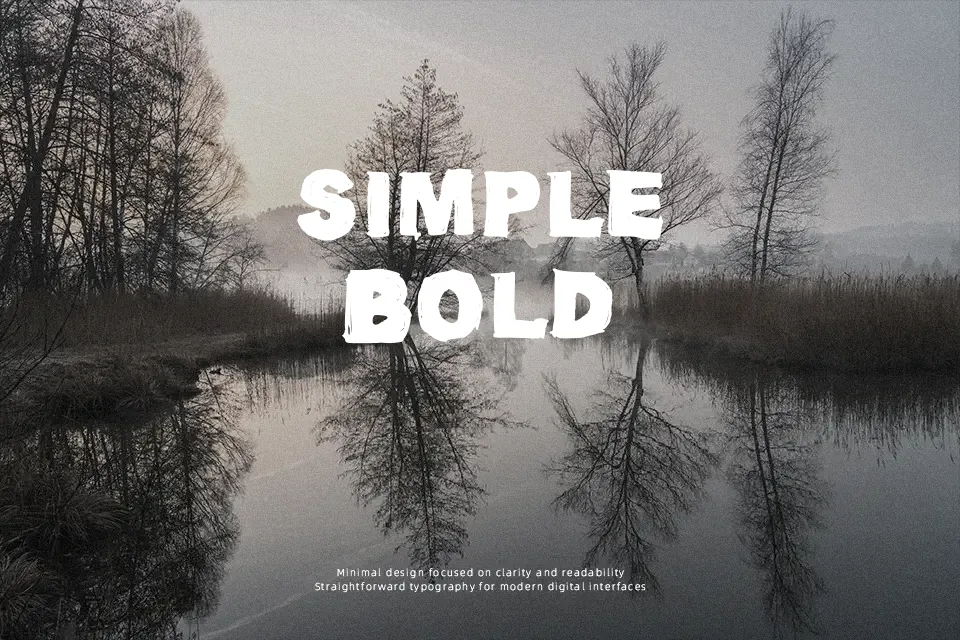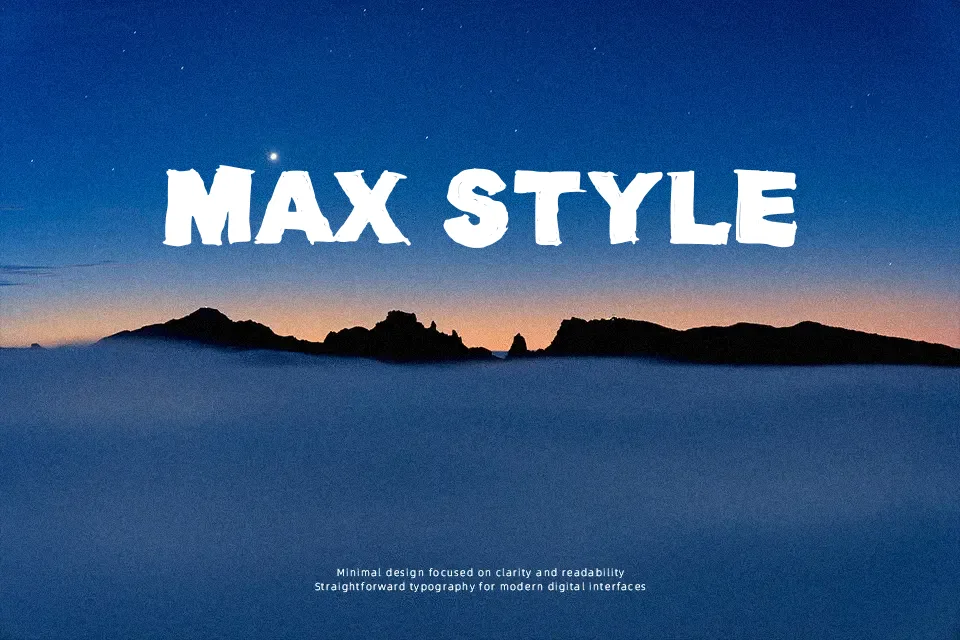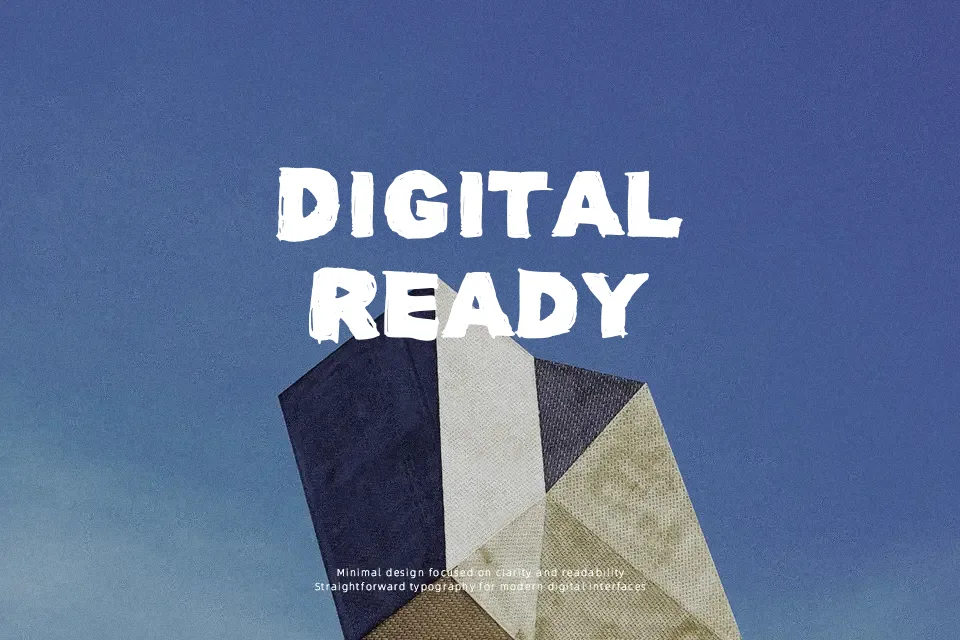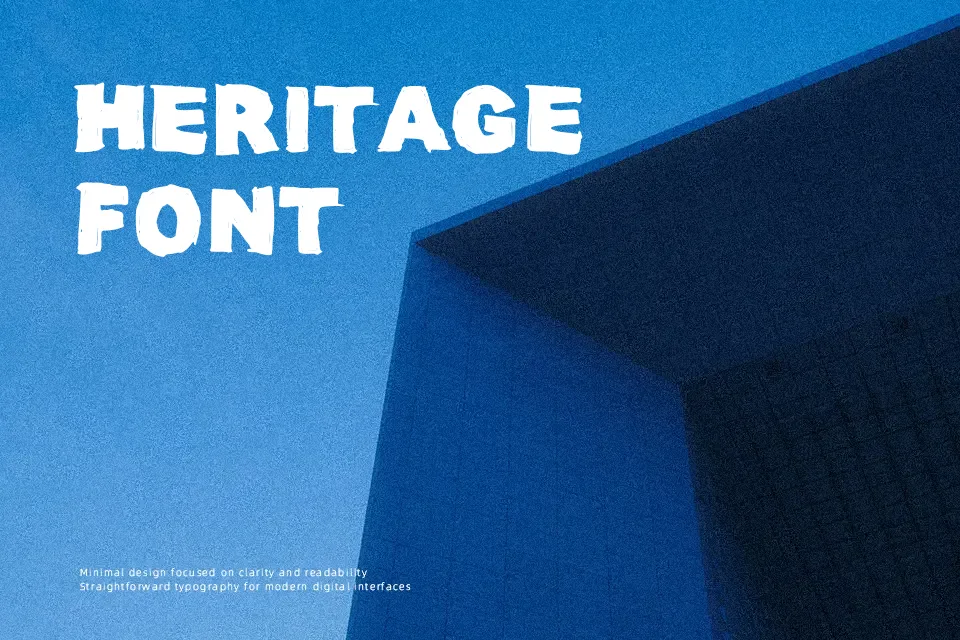
Oil Makes You Run (Faster) Font
Designed by Benjamin Wendl
Oil Makes You Run (Faster) Font uses bold display letterforms disrupted by visibly worn edges and irregular surface breaks. The strokes appear heavy, while the distressed treatment gives the characters a rough, fractured rhythm rather than a clean uniform finish. Spacing is best appreciated in short lines, where the texture can remain distinct and the proportions retain their impact. It suits large-scale titles, poster copy, and graphic lettering that needs a weathered appearance. The typeface has strong presence in display settings, but its broken details become less comfortable to read in small text or extended passages.
Perfect for fashion, headline, and music, with a bold and decorative style.